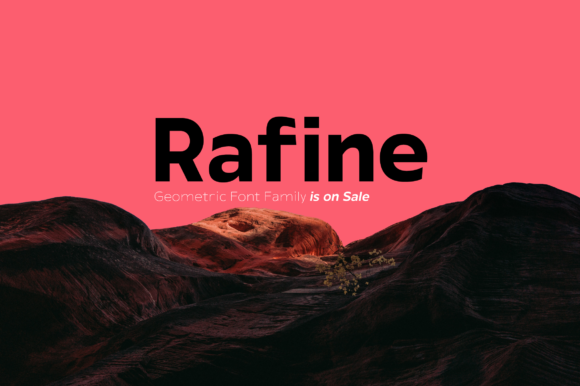
Prepare yourself to be swept away by the allure of Rafine Font, a captivating sans serif font that exudes elegance and sophistication. Crafted with meticulous attention to detail, Rafine is a typographic masterpiece that seamlessly blends timeless appeal with modern aesthetics. Step into a world of visual delight where your designs take center stage, leaving an unforgettable impression on all who behold them.
With its clean lines, flowing curves, and perfectly balanced proportions, Rafine Font promises to elevate your creative projects to new heights of visual excellence. It effortlessly complements an incredibly diverse range of applications, making it the perfect font for crafting eye-catching logos, stunning website designs, alluring social media posts, and captivating marketing materials. Unleash your imagination and explore the endless possibilities that await you with Rafine Font.
Dive into the realm of decorative signs and let Rafine Font guide you towards creating masterpieces that command attention and draw admiration. Whether you're crafting signage for a charming café, a bustling retail store, or an upscale event, Rafine Font will effortlessly elevate your designs, transforming them into captivating works of art. Its distinct character and undeniable charm will leave a lasting impression on your audience, making your message unforgettable.
Beyond its aesthetic appeal, Rafine Font is a font of unparalleled versatility, adapting effortlessly to a multitude of design styles and themes. From classic and traditional to contemporary and cutting-edge, Rafine Font seamlessly blends into any visual landscape, adding a touch of sophistication and elegance. Its ability to effortlessly harmonize with various design elements makes it the ideal choice for designers seeking a font that transcends trends and remains timeless.
With Rafine Font as your creative companion, you'll discover a new level of design freedom, where your ideas flow effortlessly onto the page, taking shape as stunning visual masterpieces. Embrace the power of this remarkable font and watch as your designs blossom into works of art that leave an enduring legacy.